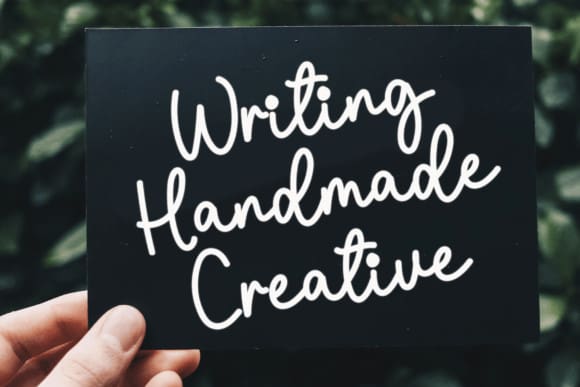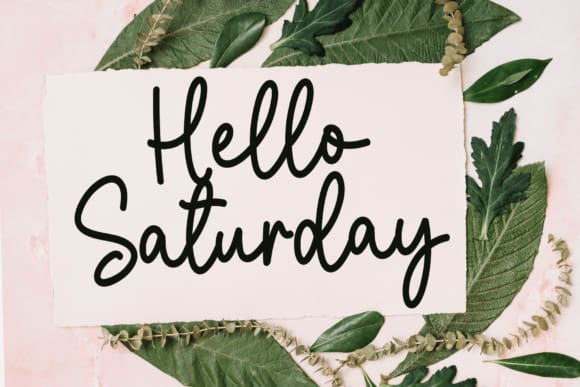
Positive Script Font
Positive Script Font is a cute and casual handwritten font with an incredibly friendly feel. Whether you’re looking for fonts for Instagram or calligraphy scripts for DIY projects, this font will turn any creative idea into a true piece of art!